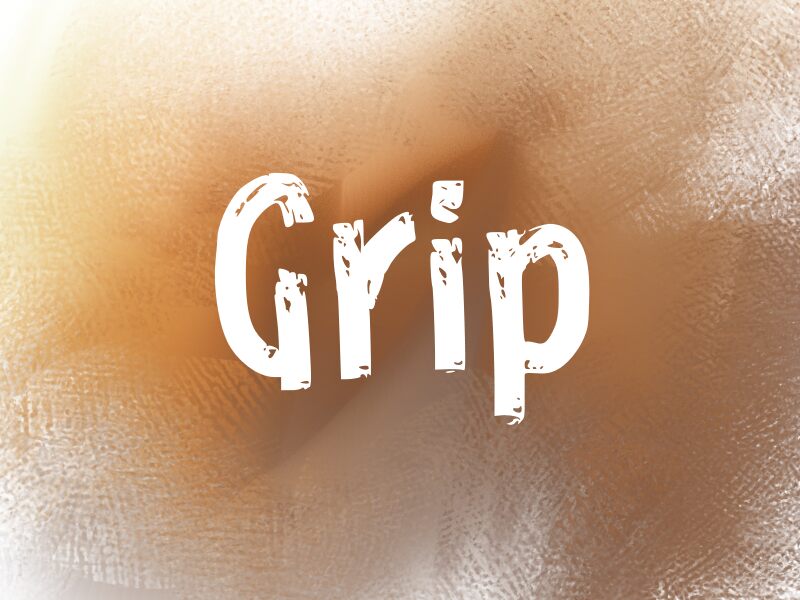
Grip
Grip font by wep is an eroded display free font with a grunge-inspired and rugged style. The font has a bold condensed body, an uneven texture, and irregular edges that combine to yield a dynamic form suitable for large-size typographical visits.
The startling irregular experimental style of Grip will suit businesses in the entertainment sector involved with music, movies, video games, and sports. Whether for products or advertising campaigns; gripping viewers’ attention is guaranteed.